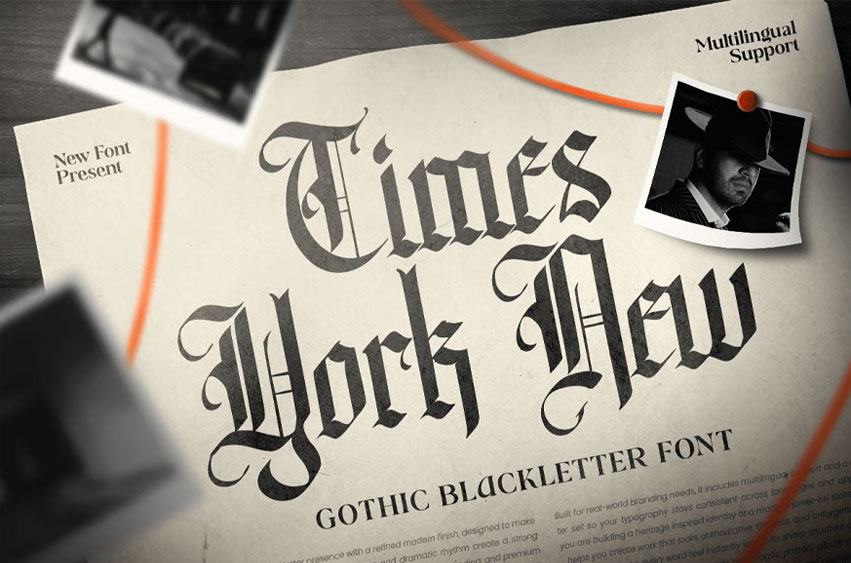
Times York New Font
Times York New Font is a gothic blackletter font designed to bring bold historical character and dramatic elegance to your typography. With sharp ornamental details, traditional blackletter structure, and a strong visual rhythm, this typeface creates a powerful tone that feels classic, dark, and instantly distinctive.
Built for statement-driven design, Times York New works beautifully across logos, wordmarks, posters, book covers, editorial headlines, music artwork, invitations, signage, labels, and themed promotional visuals. Its blackletter style gives every composition a rich old-world atmosphere while maintaining strong display impact across both digital and print design.
Whether you’re creating medieval-inspired branding, gothic event materials, vintage editorial layouts, or dramatic title typography, Times York New provides a bold blackletter foundation that makes your visuals feel iconic, expressive, and full of timeless character.
Inspiration Behind Times York New
Times York New is inspired by traditional gothic manuscripts and old English lettering—where ornamental strokes, sharp rhythm, and medieval elegance define the visual identity. The design focuses on historical character and decorative strength to support blackletter branding and dramatic headline design with a timeless, commanding presence.
Times York New Font Features:
• Gothic blackletter letterforms with bold historical character
• Perfect for logos, posters, book covers, and dramatic headline typography
• Ornamental structure for vintage and medieval-inspired design
• Strong visual impact for statement branding and themed visuals
• OpenType features for polished professional typesetting
• Gothic logos, wordmarks, and vintage brand identity systems
• Medieval-themed posters, book covers, and dramatic headlines
• Music artwork, event visuals, and ornamental promotional design
• Labels, signage, invitations, and classic decorative layouts
• Social media graphics, editorials, and historical concept branding
Bring timeless gothic power to your typography with Times York New—a blackletter font made for bold historical impact.